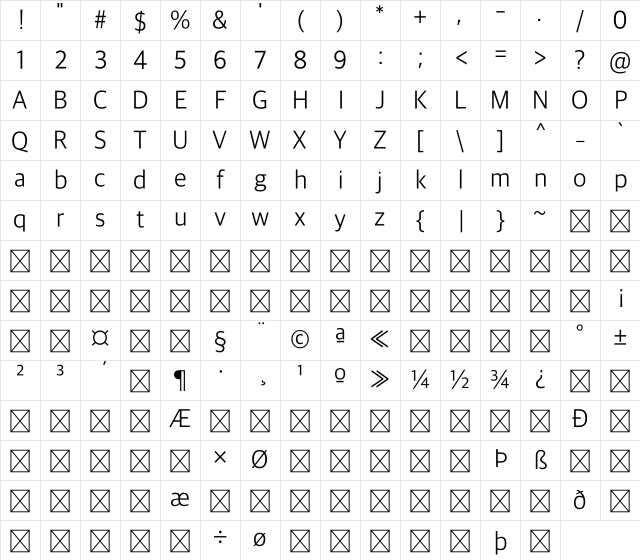
MP SDGothicNeo1Ko2 Light Free Font
MP SDGothicNeo1Ko2 Light
Foundry: Sandoll Communications Inc.
Designer: Sandoll Communications Inc.
Design Context for MP SDGothicNeo1Ko2
MP SDGothicNeo1Ko2 takes a clean, functional approach - its unadorned letterforms prioritise legibility and work reliably across screen and print environments. Its slender proportions lend an understated elegance to any composition.
Font Pairing: Pair MP SDGothicNeo1Ko2 with a medium or bold serif for headlines - the weight contrast creates an elegant, high-end feel.
Pro Tip: Use MP SDGothicNeo1Ko2 with generous tracking and line-height for the most luxurious effect - light sans-serifs reward spacious, considered layouts.
Who designed the MP SDGothicNeo1Ko2 Light font?